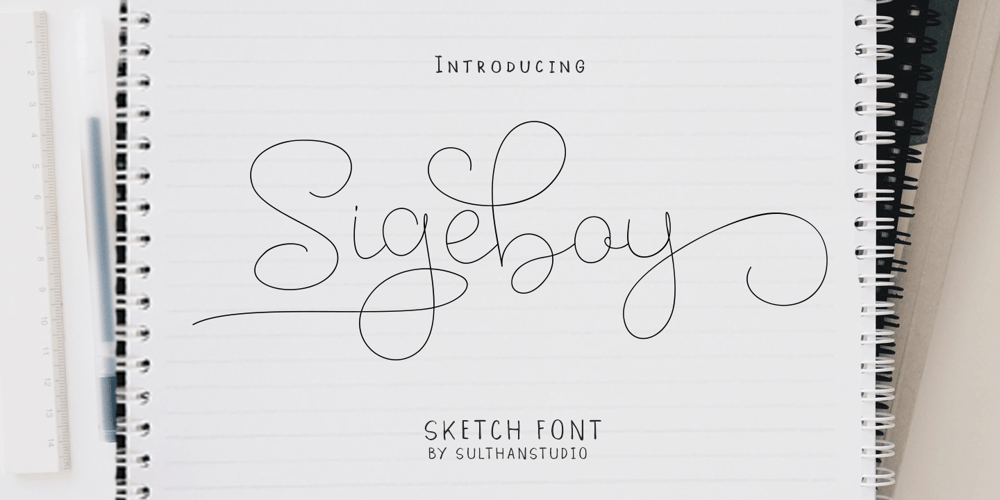
Sigeboy Font Family was designed by Nasrullah and published by Sulthan Studio. Sigeboy contains 1 styles and family package options. Handwritten font using pen with one line and not thickened, ideal for all things sketch pens, engravings, and foil pens! Sigeboy is perfect for greeting cards, logos, clothing designs, home decor, prints, quotes and more!